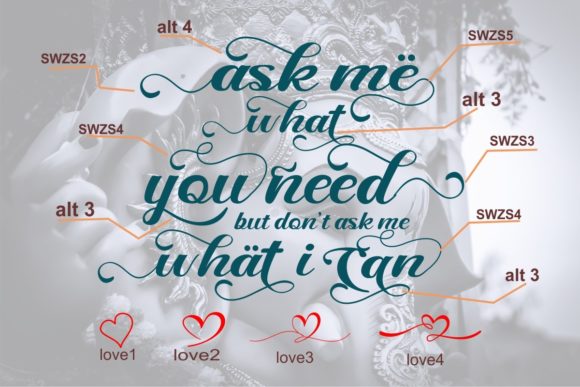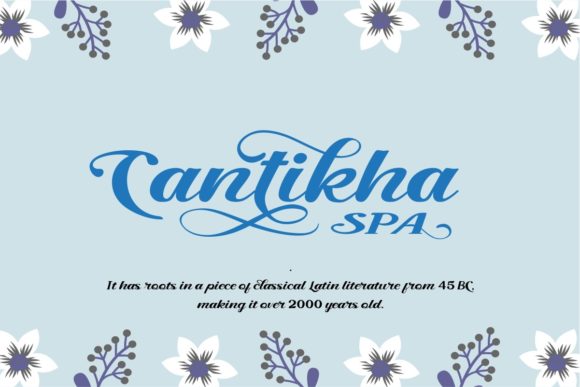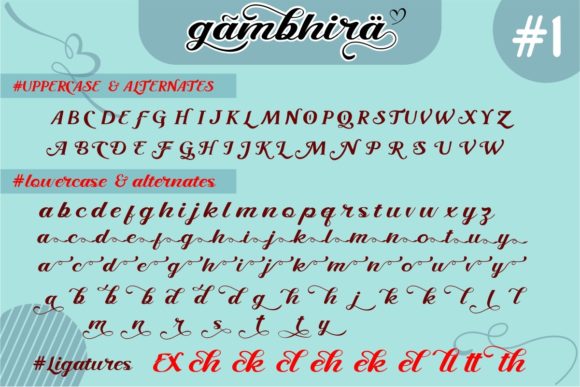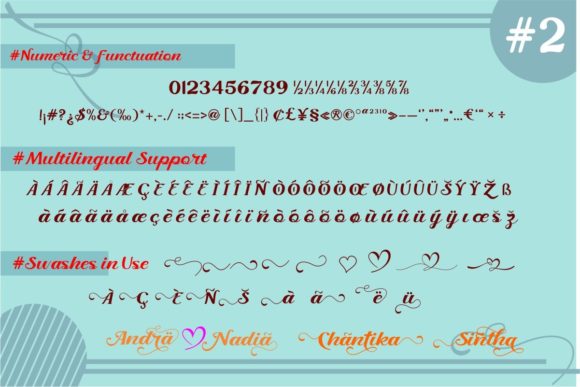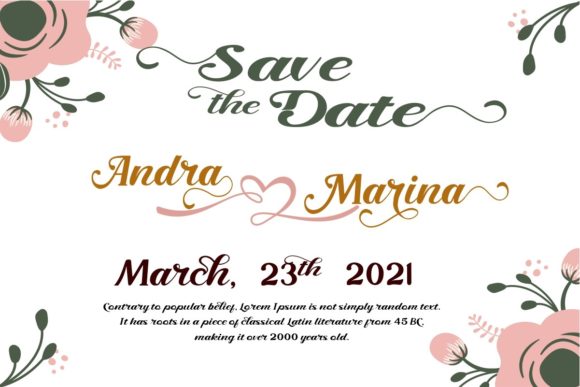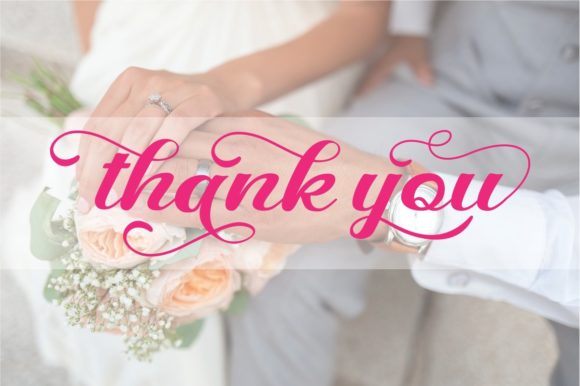
Gambhira Font: Elevate Your Designs with Elegance and Sophistication
In the world of typography, fonts play a crucial role in conveying the tone and personality of a design. For designers and crafters seeking a unique and stylish font, Gambhira Font is an excellent choice. This beautiful script font is designed to add a touch of elegance and sophistication to various design projects, making it perfect for wedding invitations, greeting cards, logos, and more.
What Makes Gambhira Font Stand Out?
Gambhira Font feels equally distinct and well-balanced, making it an excellent addition to any design that requires a customized touch. Its unique characteristics and beautiful swashes make it an ideal choice for designers looking to create stunning visual content. Whether you’re working on wedding invitations, thank you cards, quotes, greeting cards, logos, or business cards, Gambhira Font is sure to impress.
Key Features of Gambhira Font
- Unique and Distinct: Gambhira Font has a distinct and well-balanced look that sets it apart from other fonts. Its elegant and sophisticated design makes it perfect for a wide range of design projects.
- Highly Versatile: This font is highly versatile and can be used for various design projects, including wedding invitations, greeting cards, logos, business cards, and more.
Why Designers and Crafters Love Gambhira Font
Gambhira Font is a favorite among designers and crafters due to its unique and elegant design. Here are some reasons why:
- Elegant and Sophisticated: Gambhira Font adds a touch of elegance and sophistication to any design project, making it perfect for designs that require a high-end look.
- Customizable: Gambhira Font can be easily customized to suit your design needs, allowing you to create unique and personalized designs.
- Wedding Invitations: Use Gambhira Font to create stunning wedding invitations that set the tone for the big day.
- Greeting Cards: Add a touch of elegance to your greeting cards with Gambhira Font.
- Logos: Use Gambhira Font to create unique and memorable logos for your business or brand.
- Business Cards: Elevate your business cards with Gambhira Font and make a lasting impression.
In conclusion, Gambhira Font is a beautiful and elegant script font that is perfect for designers and crafters looking to add a touch of sophistication to their designs. With its unique characteristics, PUA encoding, and high versatility, Gambhira Font is an excellent choice for a wide range of design projects. Whether you’re working on wedding invitations, greeting cards, logos, or business cards, Gambhira Font is sure to impress.